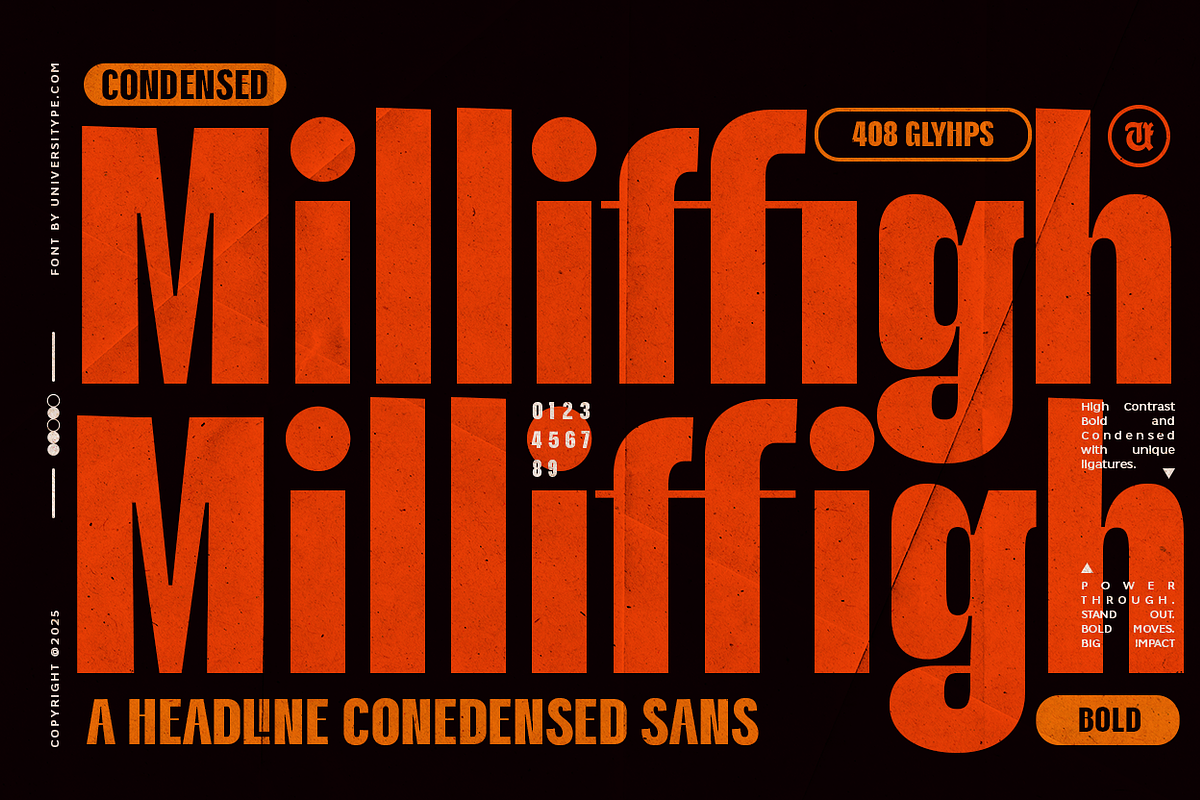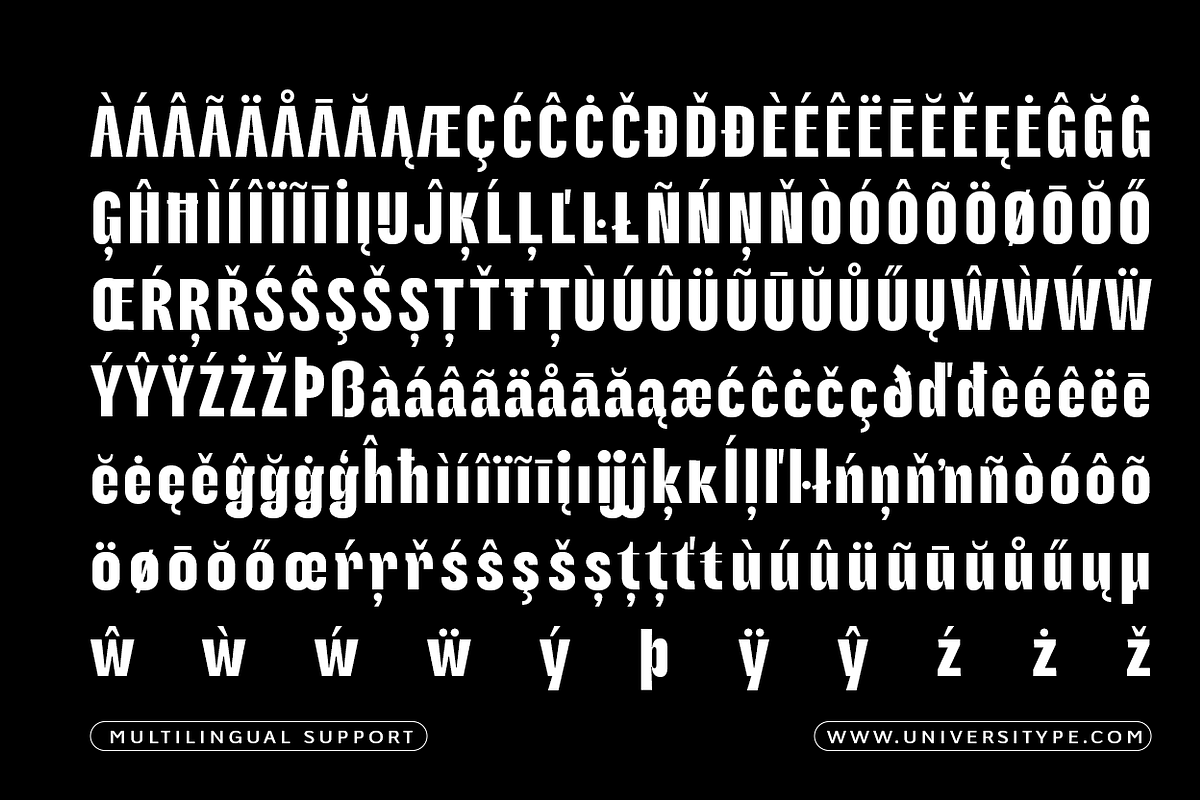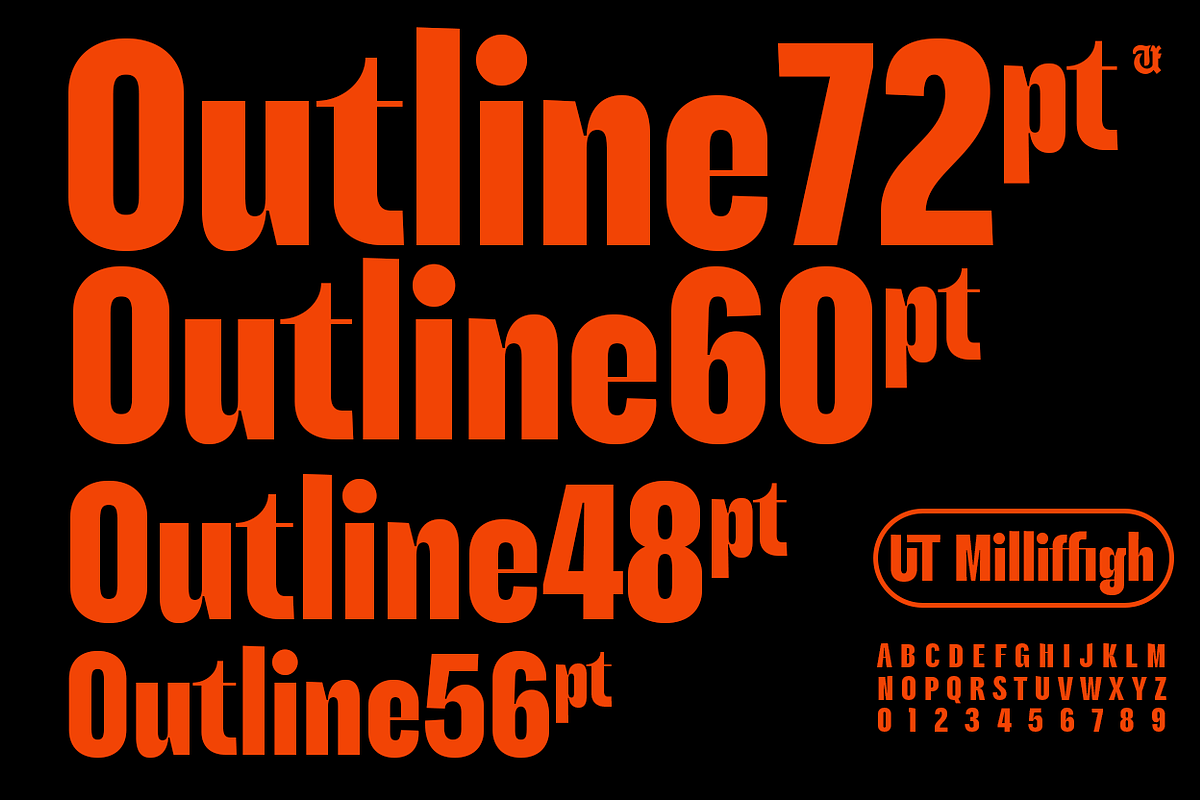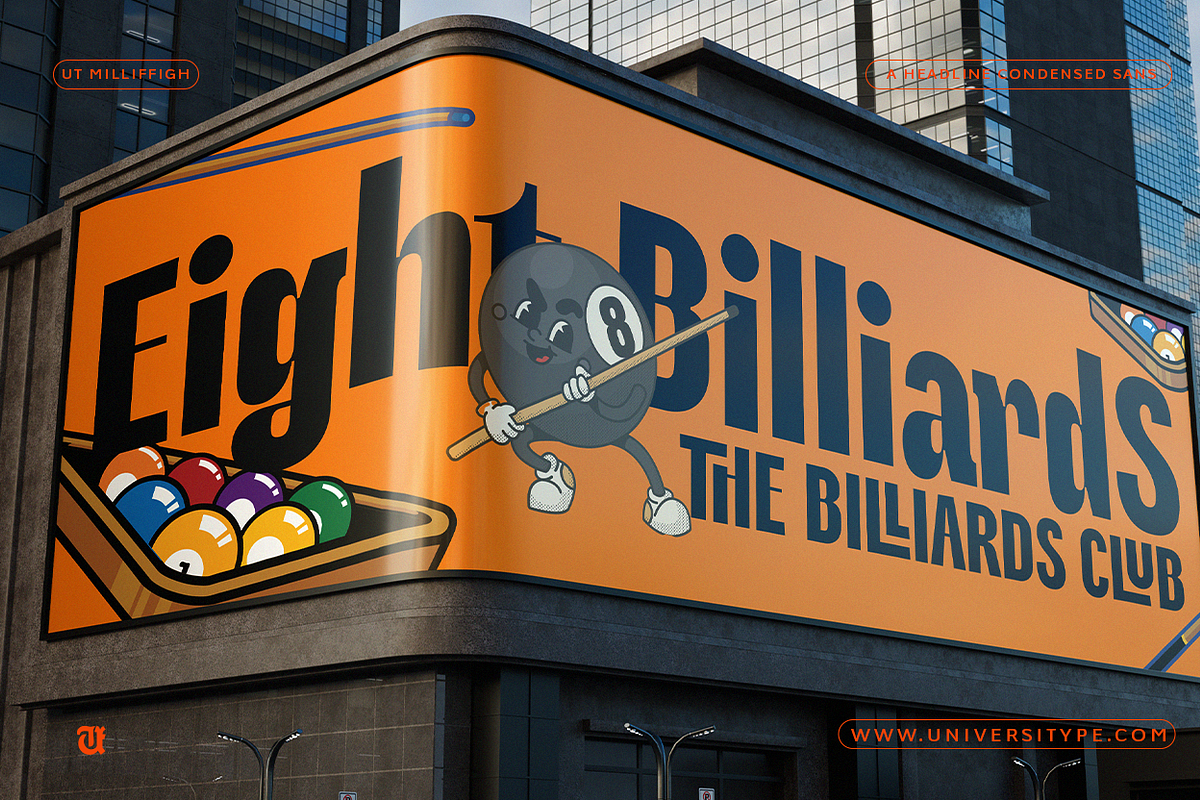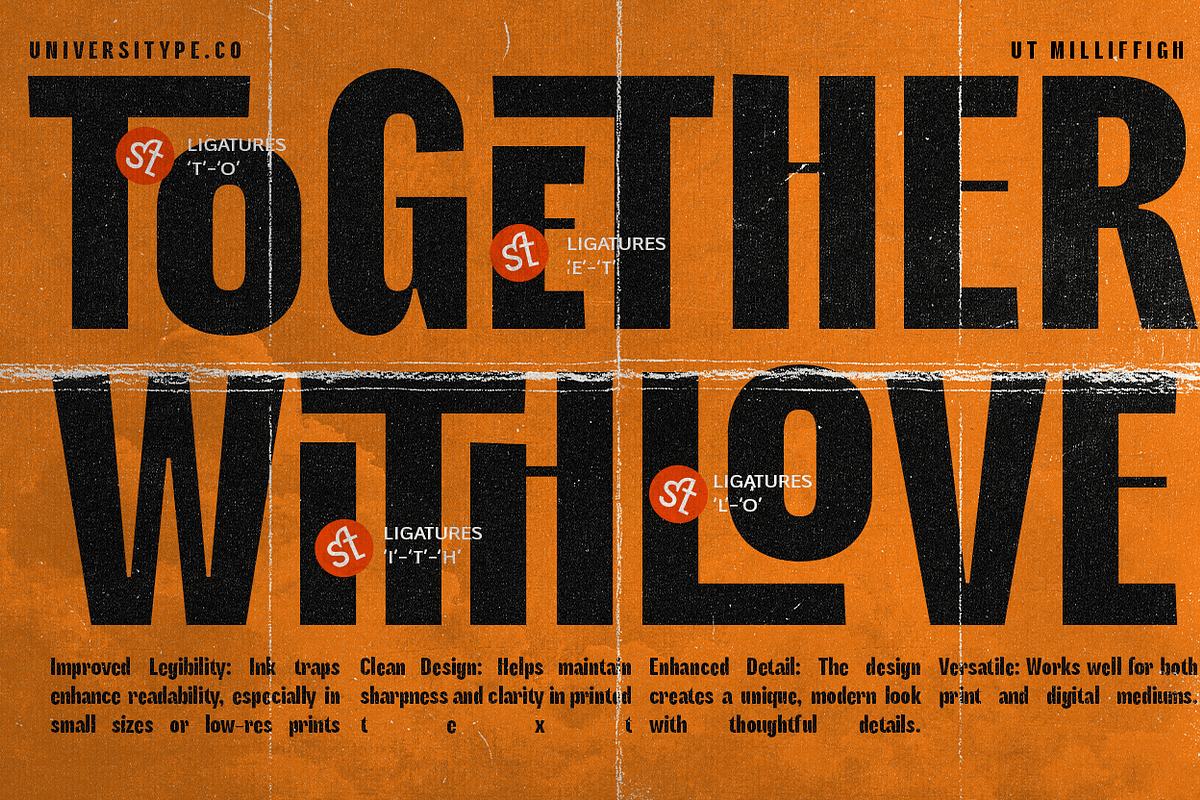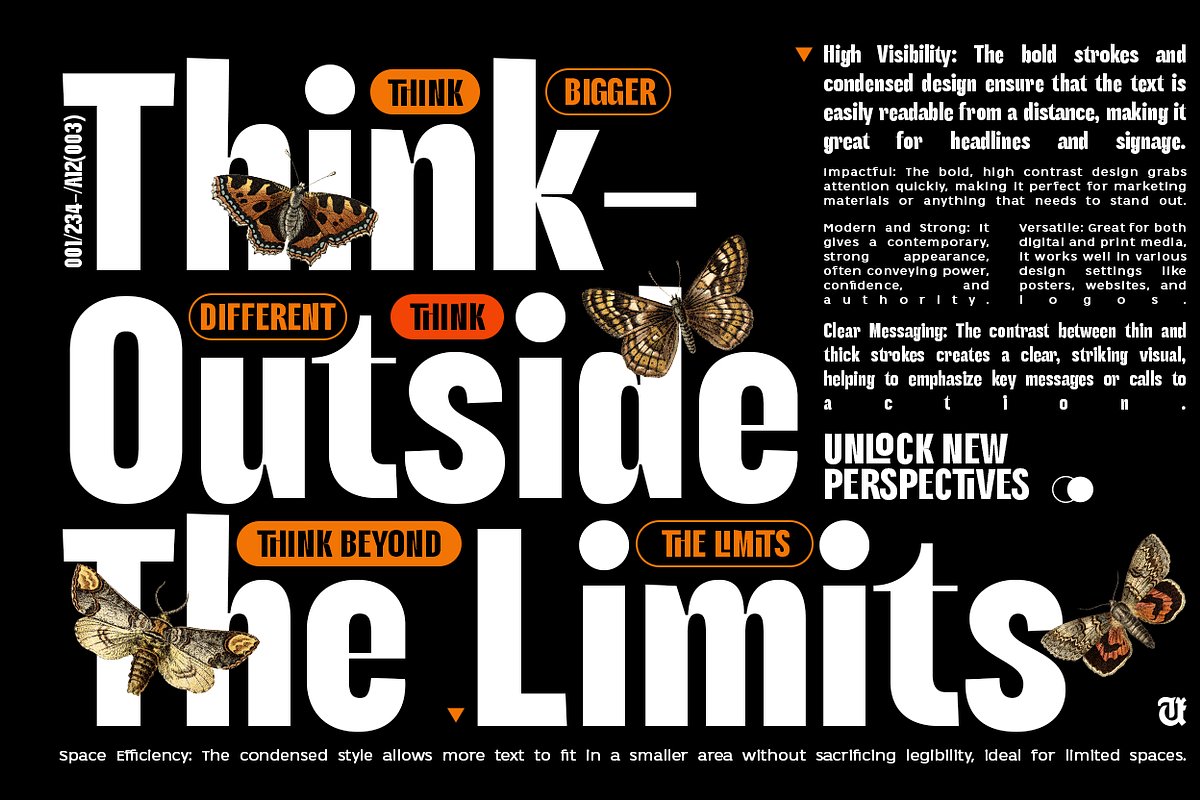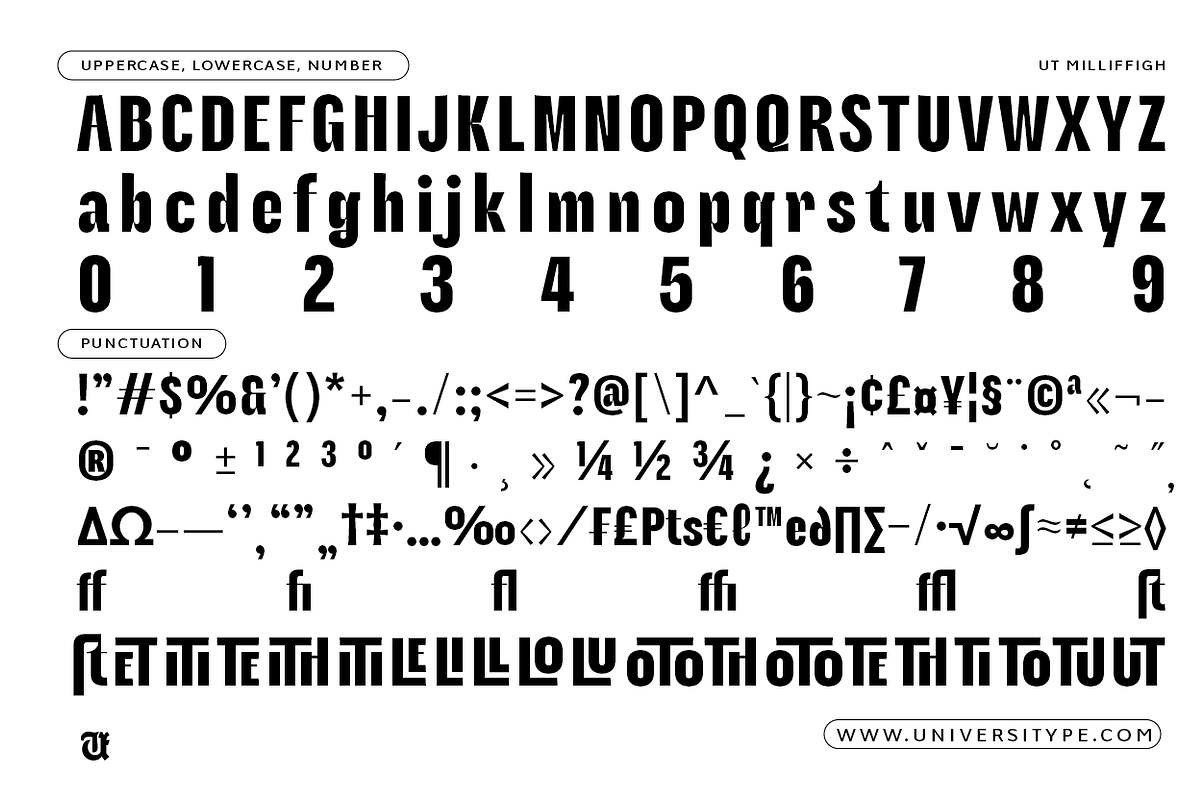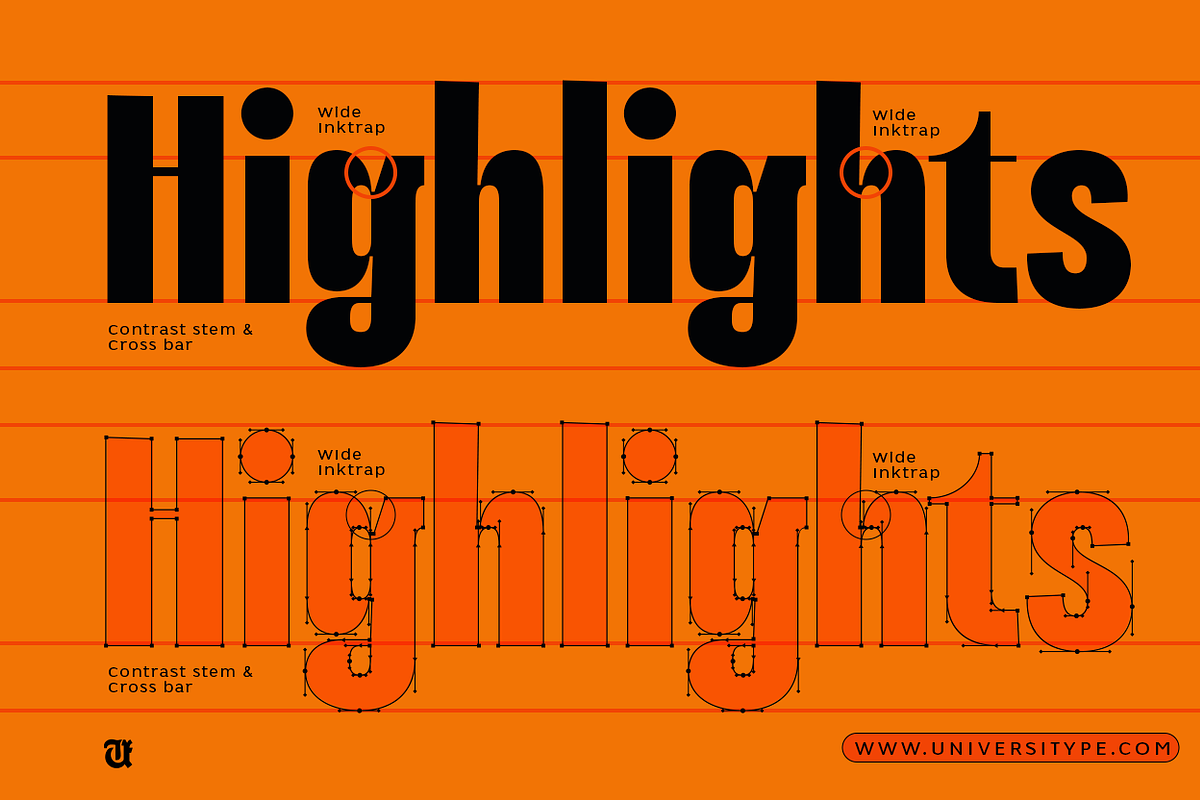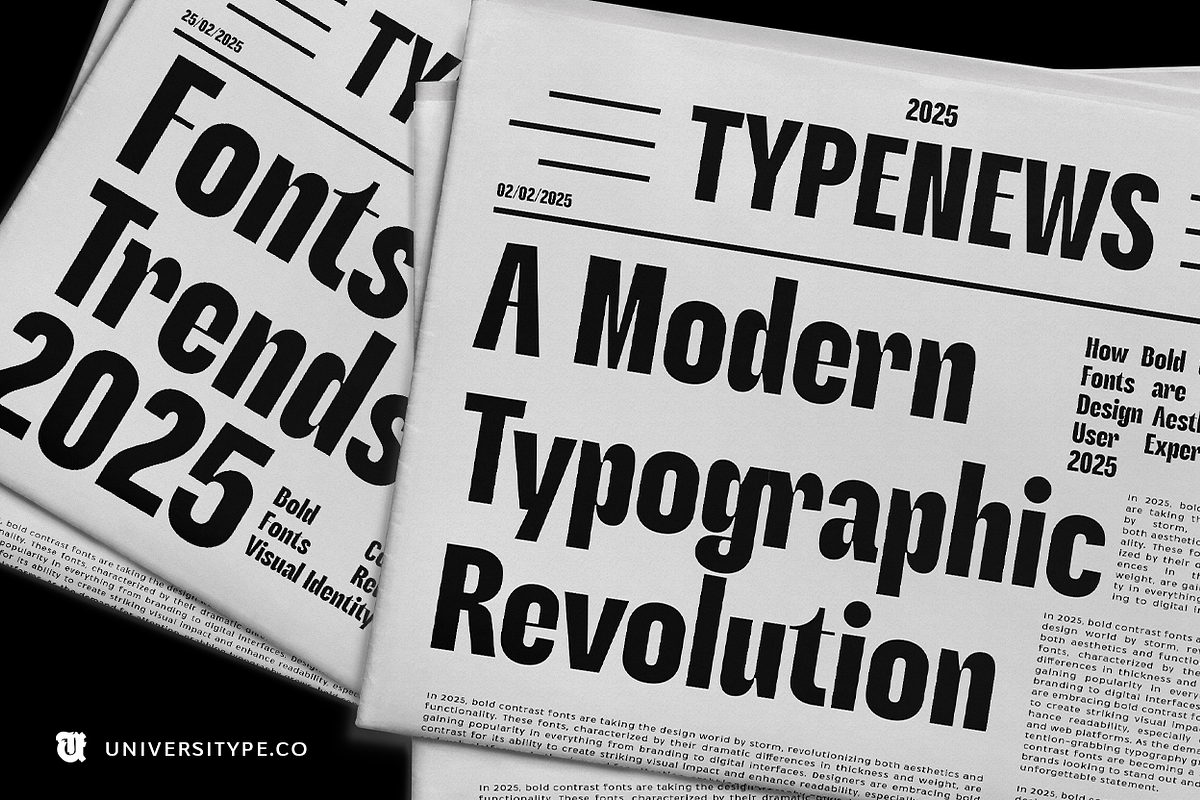
UT Milliffigh - A Condensed Font
UT Milliffigh : A Typeface Engineered for Impact UT Milliffigh is an answer to the modern designer’s crave for clarity and confidence. With razor-sharp contrast and a tightly condensed silhouette, this font refuses to blend in. Ideal for headlines, branding, and digital interfaces, UT Milliffigh serves drama without dropping readability, perfect for projects that demand to be seen and understood.
Key Characteristics:
- High-Contrast Boldness – Thick strokes paired with subtle refinements for a commanding visual impact.
- Condensed Form – Maximizes space without compromising readability, ensuring text remains bold and clear.
- Stylish Ligatures & Alternates – Custom-designed ligatures and alternate characters add a refined, dynamic touch.
- Versatile & Eye-Catching – Whether in all-caps or mixed case, Milliffigh’s letterforms demand attention.
Who It’s Made For This typeface is designed for creatives who push boundaries. It’s a powerful tool for designers, brands, and visionaries looking for typography that exudes strength and personality. Whether you’re crafting an identity for a high-end fashion brand, a cutting-edge tech startup, or a bold editorial layout, this font adapts effortlessly to your vision.
UT Milliffigh is Perfect For :
- Branding & Logo Design: Make an unforgettable first impression with a typeface that exudes confidence.
- Luxury & Fashion Packaging: Elevate your designs with bold yet elegant typography.
- Editorial & Magazines: Perfect for high-impact headlines and standout layouts.
- Tech & Sportswear: A dynamic and powerful look that resonates with modern audiences. Advertising & Marketing: Amplify your message with typography that refuses to go unnoticed.
- Alternate, stylistic alternate, and ligatures: Add an extra layer of sophistication to your designs with our carefully crafted alternate characters and ligatures.